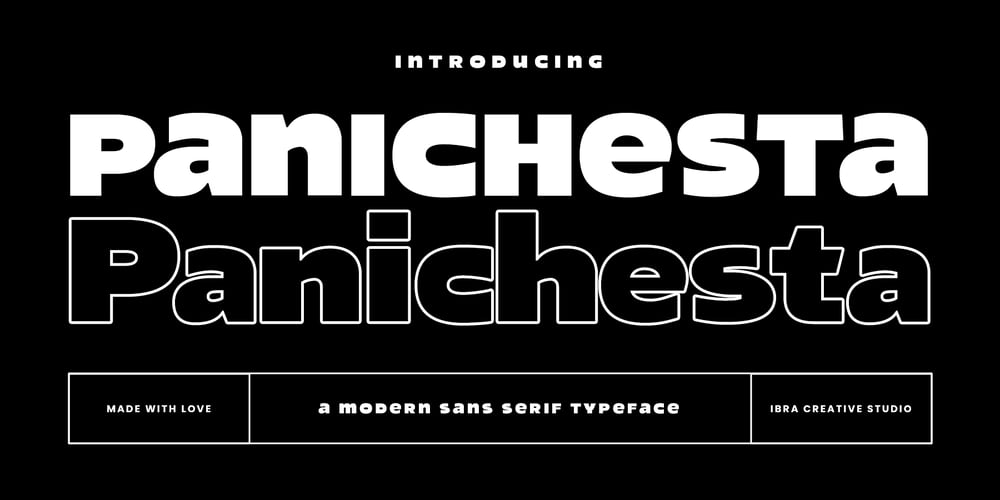
Panichesta Font Family was designed by Roisatul Azizah and published by IbraCreative. Panichesta contains 1 styles and family package options. Panichesta – A Modern Sans Serif TypefacePanichesta, a contemporary sans-serif typeface, seamlessly blends modern aesthetics with timeless simplicity. This font exudes a clean and elegant design, offering a versatile solution for various design applications. Its balanced letterforms boast a harmonious mix of straight lines and subtle curves, conveying a sense of sophistication and readability. Panichesta’s carefully crafted characters maintain a sleek and minimalist appearance, making it an ideal choice for both digital and print media. With a touch of distinctiveness, Panichesta stands out as a versatile and stylish typeface that effortlessly adapts to diverse design needs, from sleek corporate branding to modern editorial layouts.Panichesta is perfect for branding projects, logo, wedding designs, social media posts, advertisements, product packaging, product designs, label, photography, watermark, invitation, stationery, game, fashion and any projects.Fonts include multilingual support for; Afrikaans, Albanian, Czech, Danish, Dutch, English, Estonian, Finnish, French, German, Hungarian, Italian, Latvian, Lithuanian, Norwegian, Polish, Portuguese, Slovak, Slovenian, Spanish, Swedish.